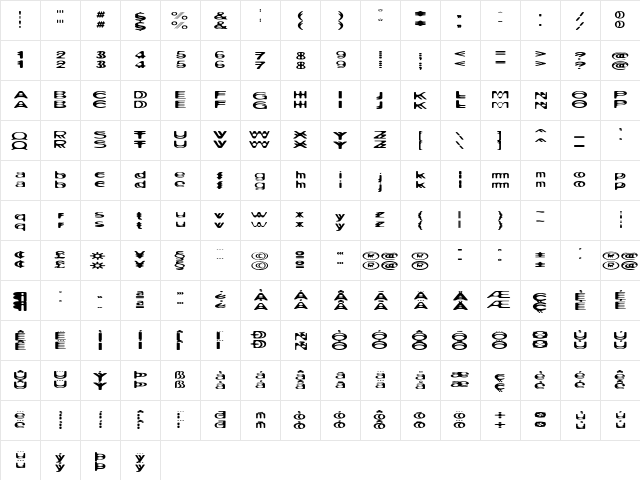
Ritual Three Regular
Design Context for Ritual Three Typeface
Ritual Three is a composed and adaptable typeface that performs quietly and consistently across a wide range of design contexts.